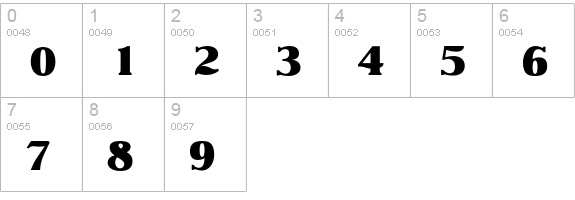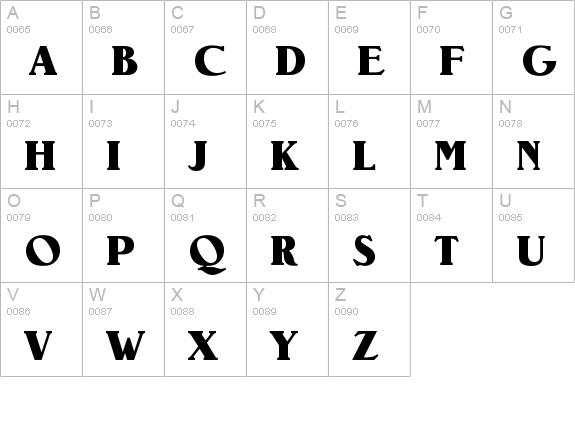
Nevada-Heavy is a heavy, high-impact variant in the Nevada typeface family \xE2\x80\x94 well suited to high-impact headlines, posters, and display advertising.
Nevada-Heavy font is a bold and impactful typeface that exudes strength and modernity. With its sturdy letterforms and strong presence, this font is perfect for making a statement in any design project. Whether you're creating a bold headline or a striking logo, Nevada-Heavy will grab attention and leave a lasting impression. But the best part? Nevada-Heavy font is completely free to download at FontsMarket.com! That's right, you can enhance your designs with this powerful font without spending a dime. So why wait? Download Nevada-Heavy today and take your projects to the next level with its bold and commanding style.